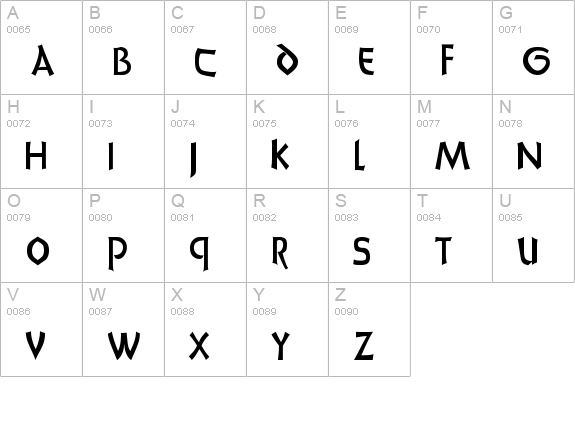
Uncials Regular Font Details
Uncials Regular is the standard, neutral variant in the Uncials typeface family \xE2\x80\x94 well suited to general body text, paragraphs, and standard typographic work.
Uncials Regular is a captivating and versatile font that exudes an air of elegance and sophistication. Its distinctive design features rounded edges and intricate curves, which lend it a timeless appeal. Whether used for headlines, titles, or body text, this font effortlessly adds a touch of class to any project. With its roots in ancient calligraphy, Uncials Regular offers a unique blend of tradition and modernity. Its bold yet graceful strokes make it equally suitable for both formal and informal contexts. This font stands out in any setting, making it a perfect choice for branding, logos, invitations, and much more. One of the most remarkable aspects of Uncials Regular is that it is completely free. Yes, you read that right! This stunning font can be freely downloaded at FontsMarket.com. This means that you can enhance your designs with this captivating typeface without any constraints or costs. It's a true gem in the world of typography, offering beauty and accessibility in equal measure. So, why wait? Discover the beauty of Uncials Regular today and let your creativity soar. Download it for free at FontsMarket.com and unlock a world of possibilities for your design projects.